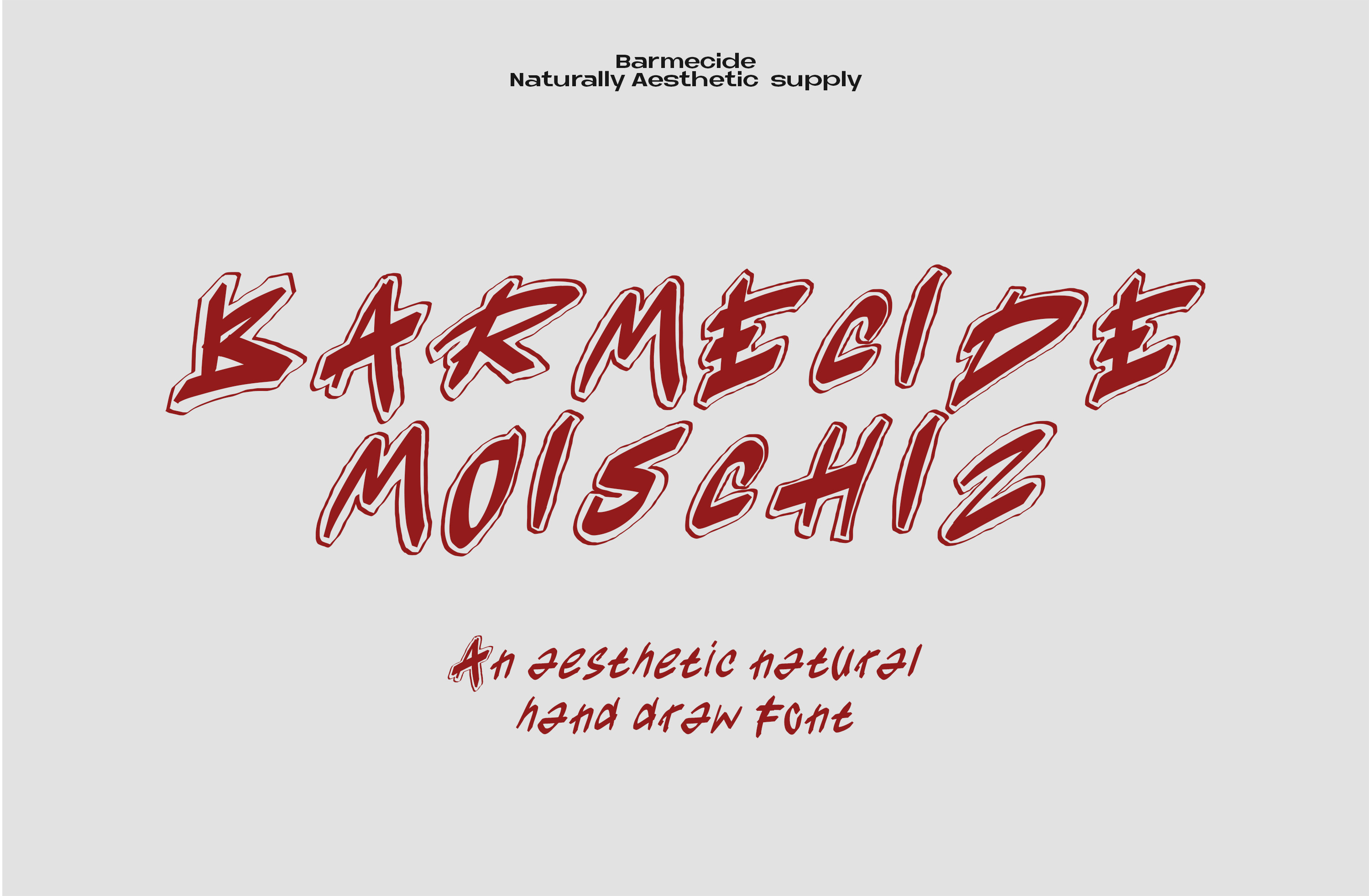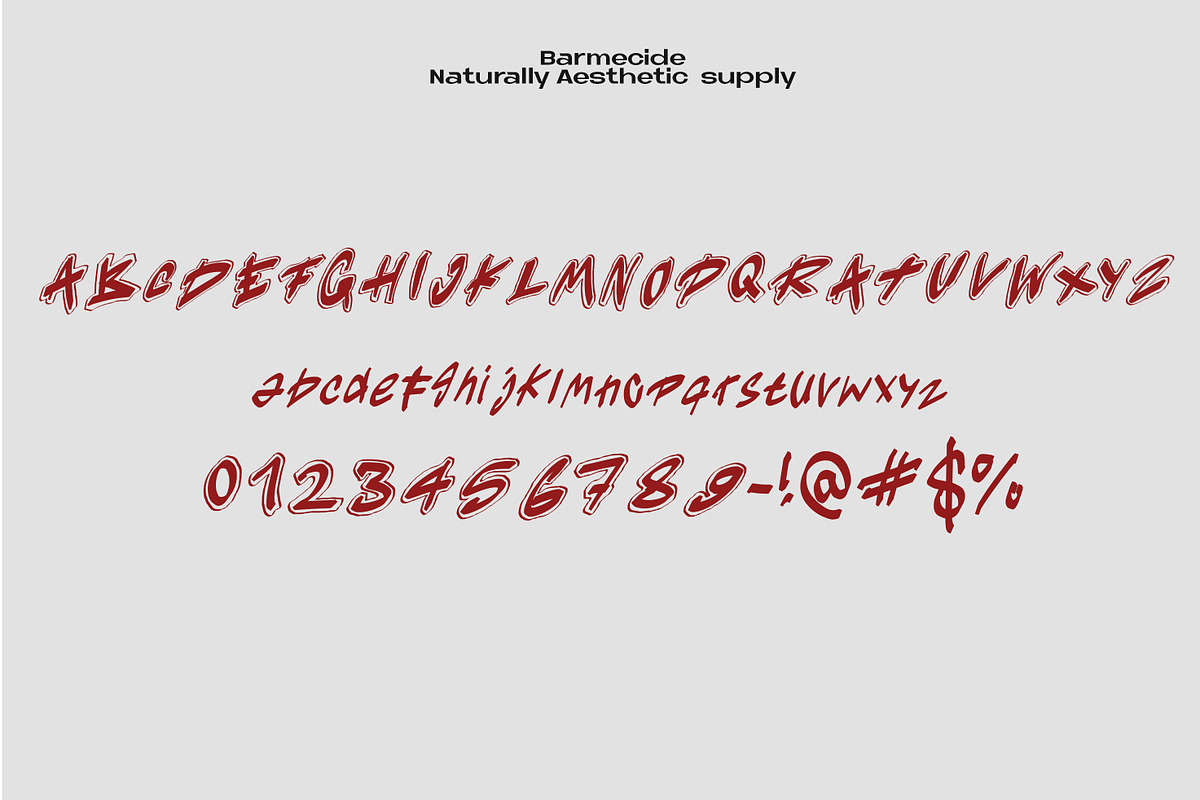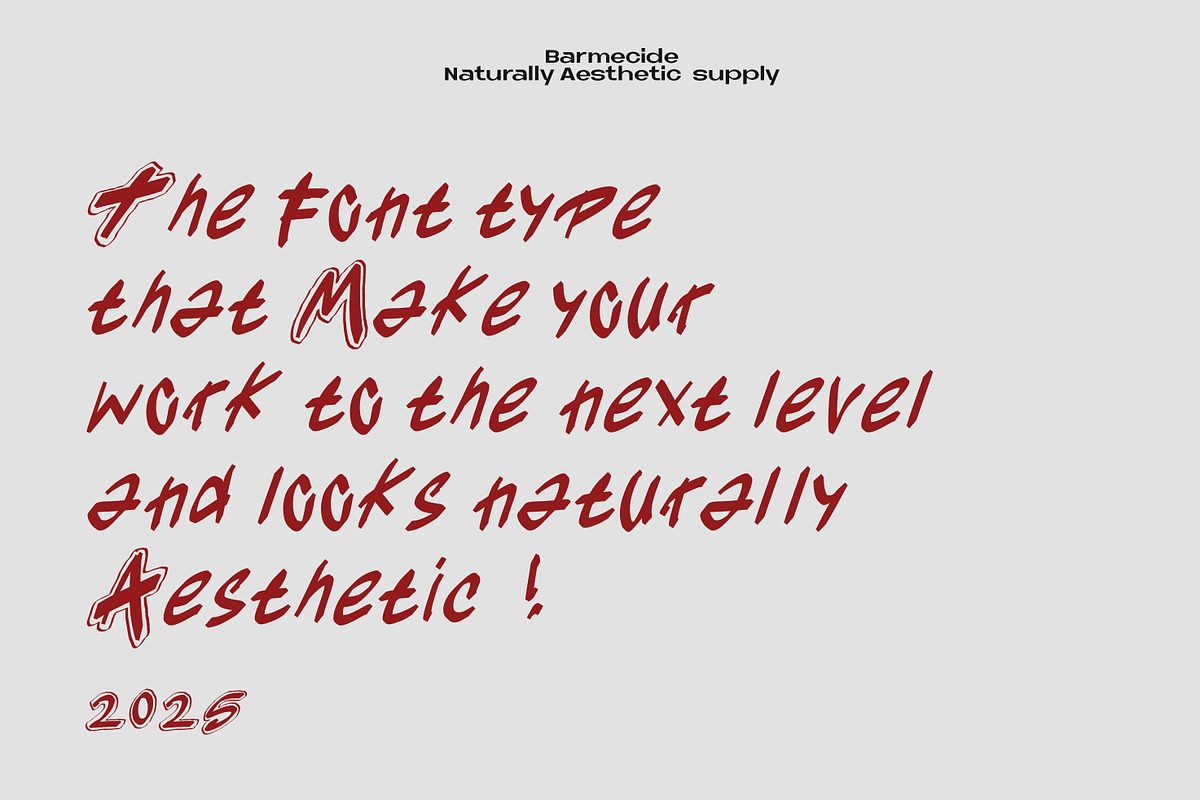
MOISCHIZ FONT
Presenting a genuinely exclusive font family, designed to elevate your creative work from concept to masterpiece. The high-contrast letterforms and carefully considered negative space create an inherently aesthetic visual rhythm. This is not a mass-produced digital imitation—it is a digital-native artisan creation, featuring extensive ligatures, stylistic alternates, and contextual kerning. Ideal for fine packaging, high-end branding, and editorial layouts where the typography itself must speak of unparalleled craftsmanship and intentional design.